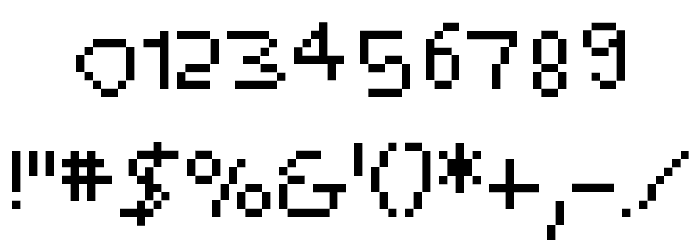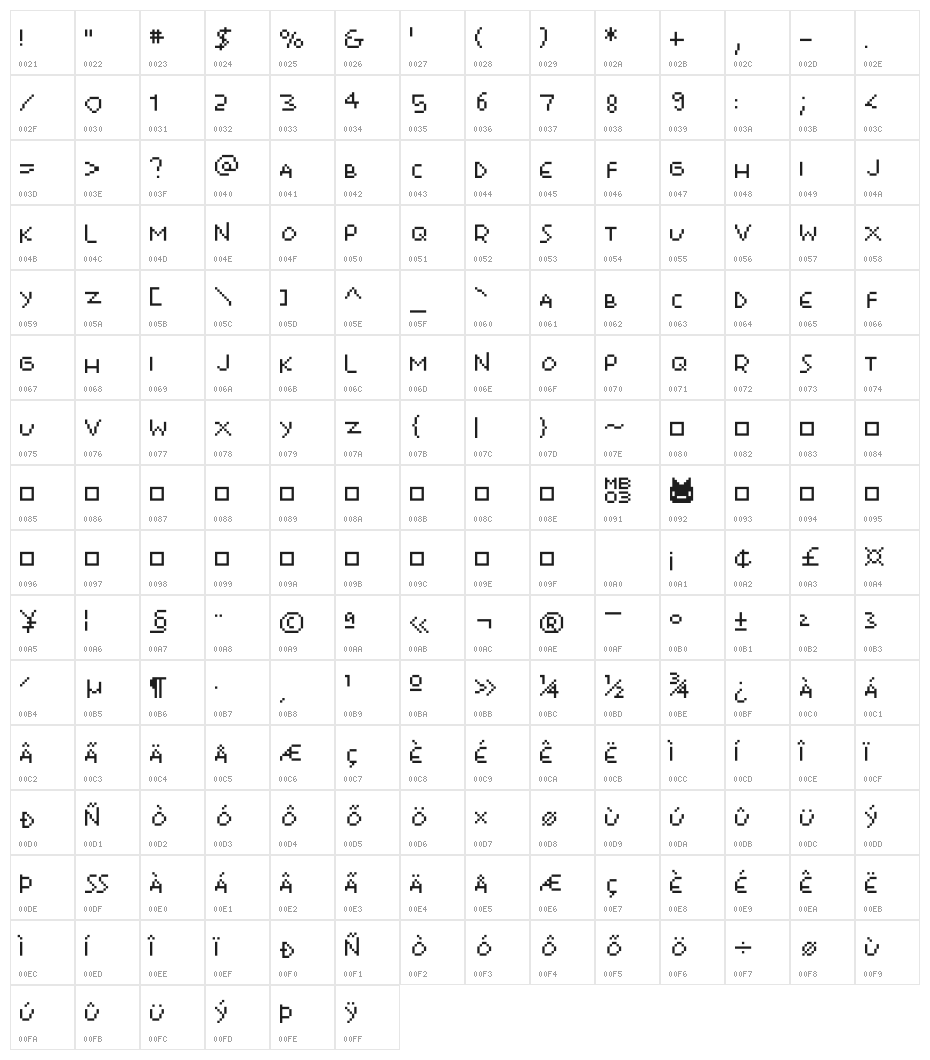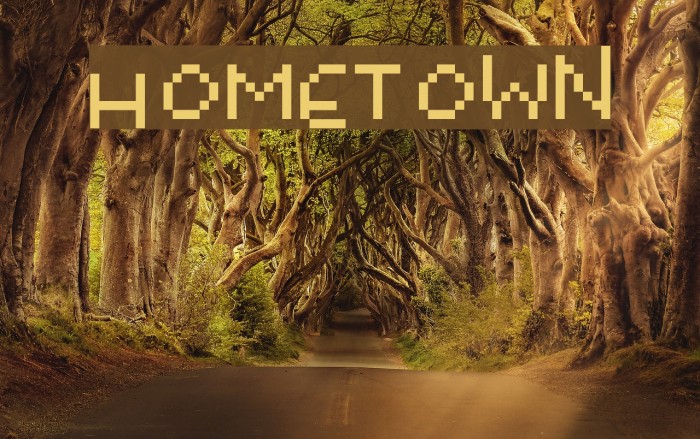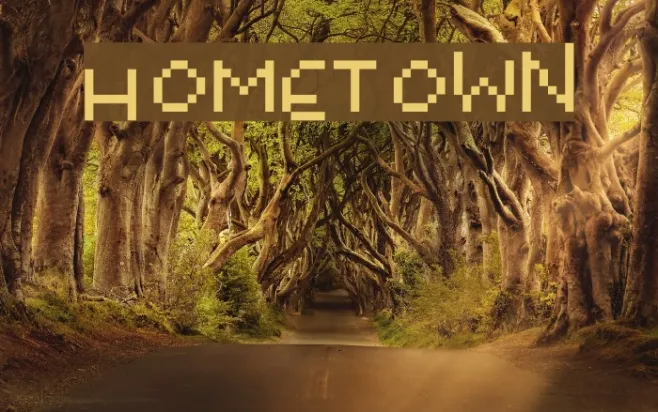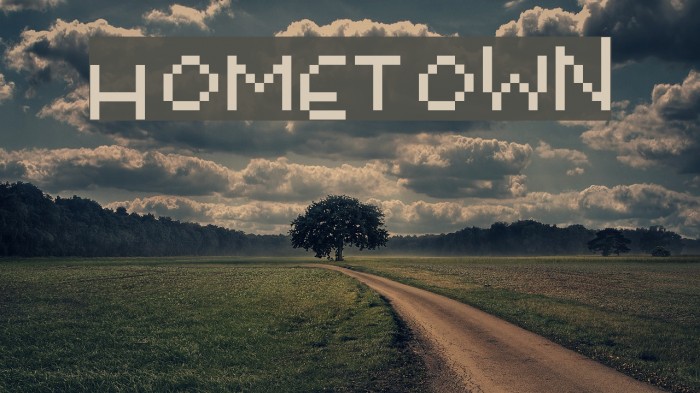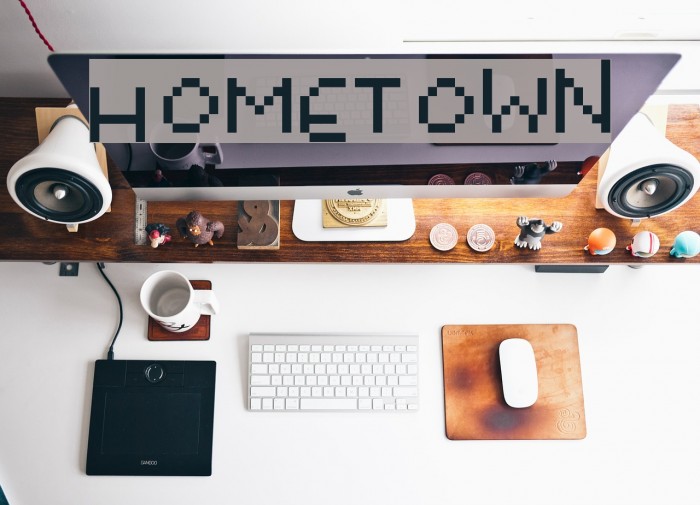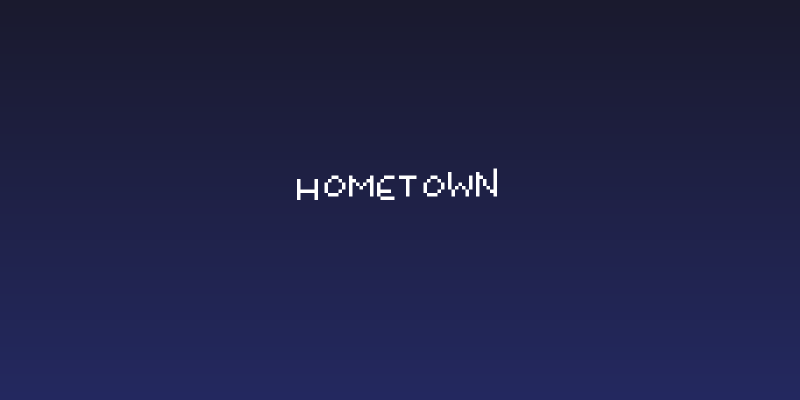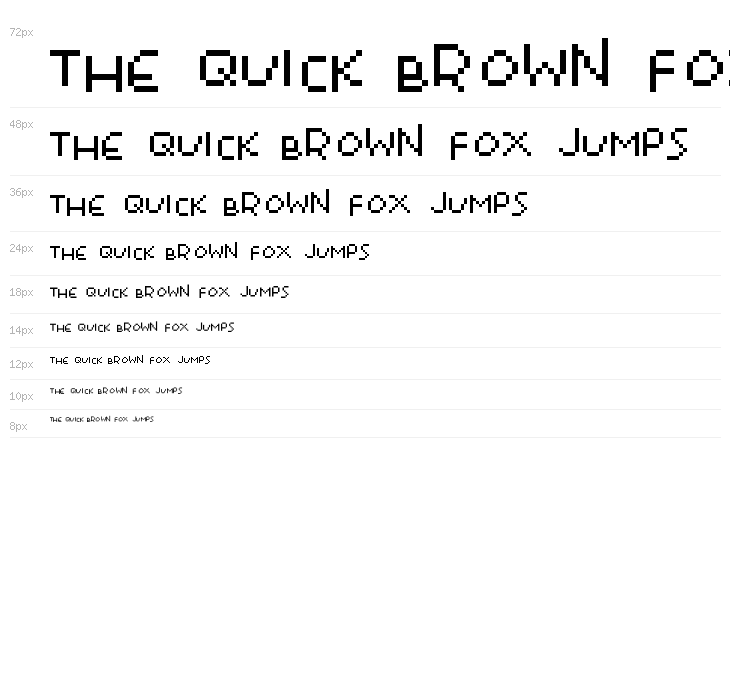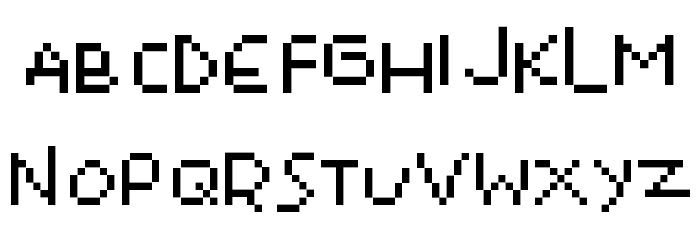
Hometown Font
Hometown Description
This font features a pixelated, blocky design reminiscent of early digital displays and video games. Each character is constructed with a uniform grid-like structure, giving it a distinctly retro and digital aesthetic. The uppercase and lowercase letters maintain a consistent height, contributing to a cohesive and uniform appearance. Numbers and special characters are designed with the same pixelated style, ensuring visual harmony across all elements. The font's simplicity and geometric precision make it ideal for projects that aim to evoke nostalgia or a tech-oriented theme.
| Use Case | Headlines, Logos, Digital Displays |
| Proposed Projects | Ideal for video game design, retro-themed posters, digital art projects, and tech-related branding. |